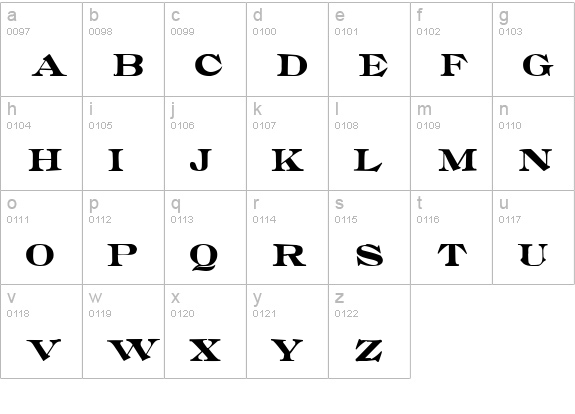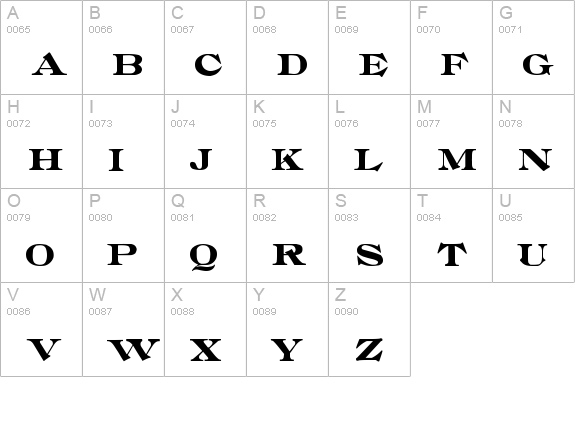
The Extra HPLHS font is a captivating and versatile typeface that brings a touch of elegance and sophistication to any design project. With its unique blend of classic and modern elements, this font is perfect for adding a touch of charm and personality to your creations. What sets the Extra HPLHS font apart is its attention to detail and fine craftsmanship, evident in every curve and stroke. Whether you're working on a brand logo, a poster, or a website design, this font will elevate your work to the next level. Best of all, the Extra HPLHS font is available for free download at FontsMarket.com. So go ahead and enhance your projects with this exquisite typeface today!